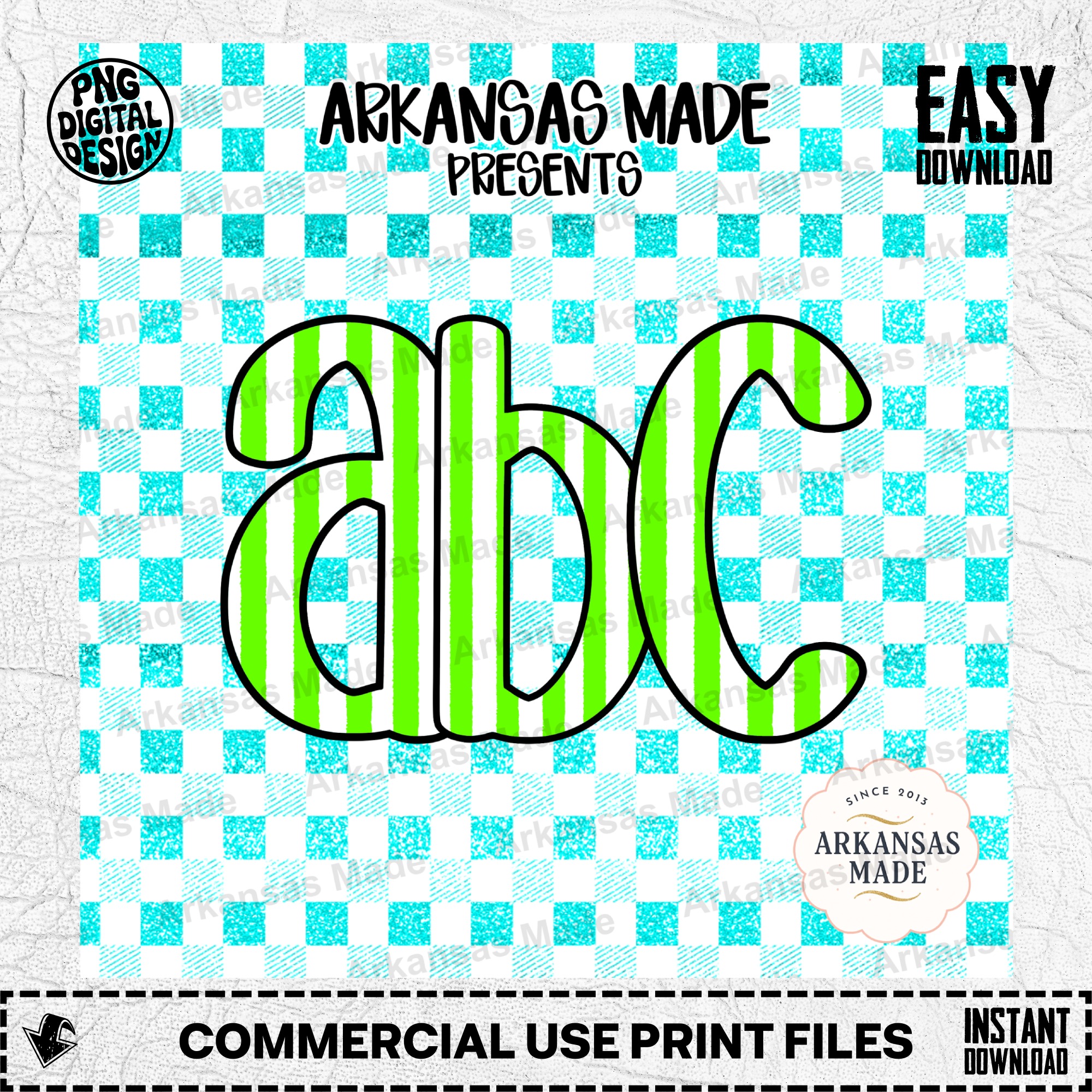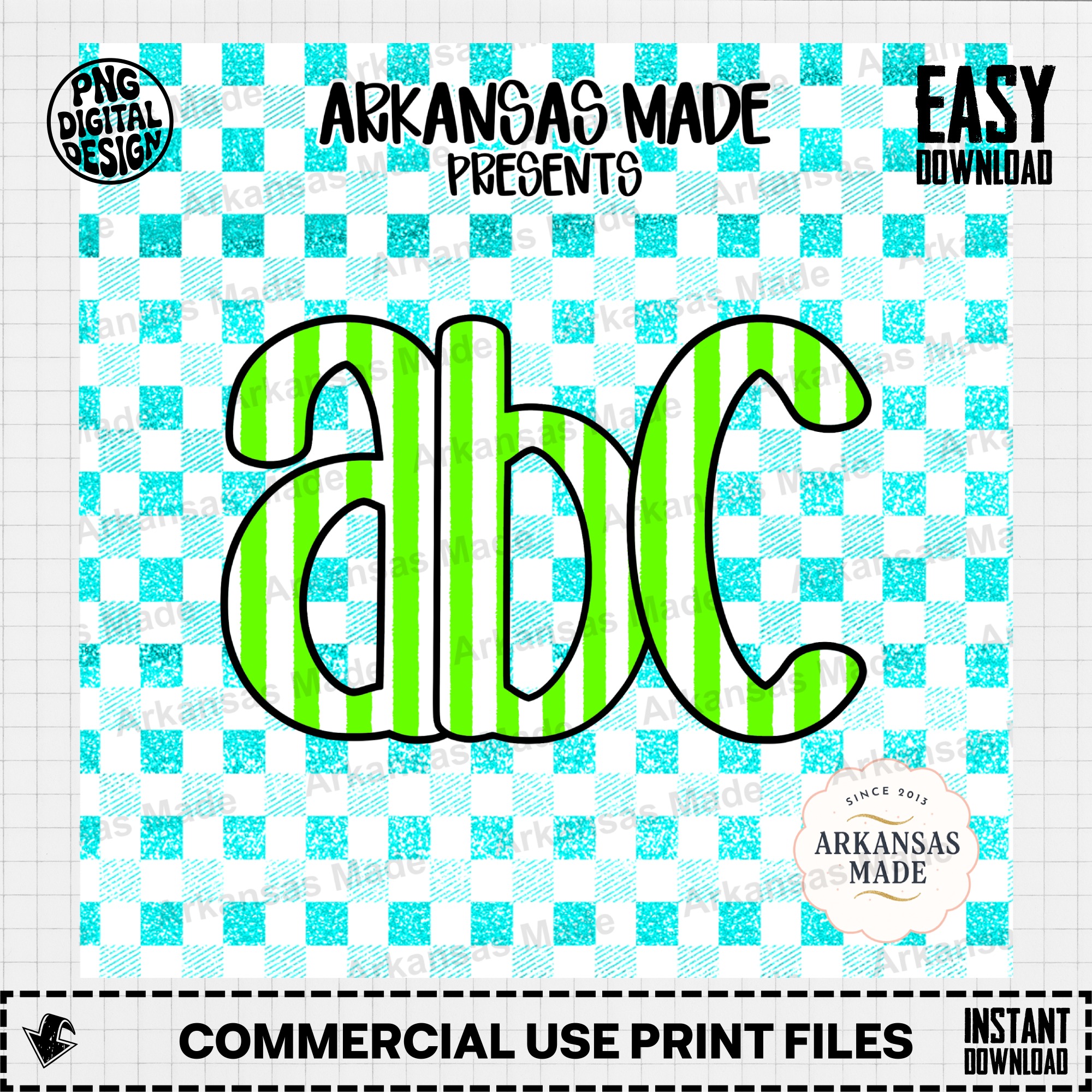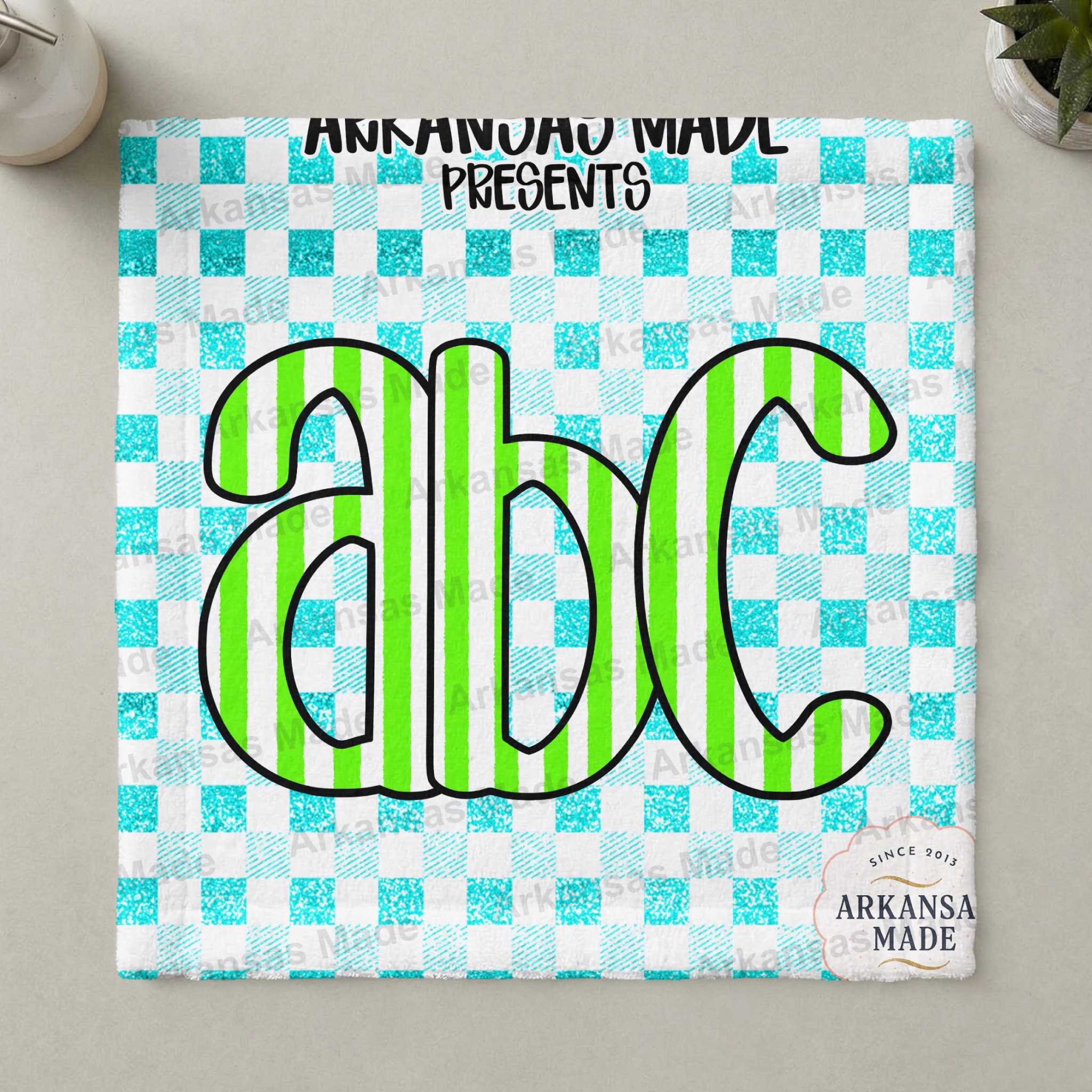
Bright Green Striped ABC Digital Download Alpha Set | Faux Glitter Gingham Letters Numbers Font PNG Clipart Bundle | Teacher Crafting Kids
Get this vibrant Bright Green Striped ABC Digital Alpha Set, perfect for crafting unique designs with faux glitter gingham and cheerful colors. This playful collection offers a fun, preppy aesthetic ideal for teachers, parents, and DIY enthusiasts. Create personalized gifts, party decor, back-to-school items, or charming nursery accents. It’s a fantastic resource for any project needing a pop of bright, youthful energy.